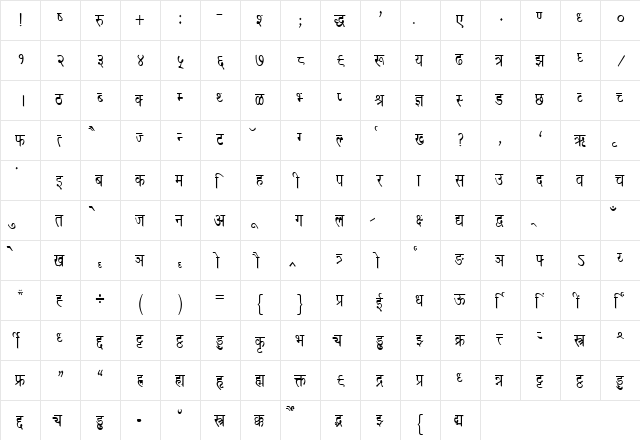
DEV021 Normal
Design Context for DEV021 Typeface
DEV021 is a composed and adaptable typeface that performs quietly and consistently across a wide range of design contexts.